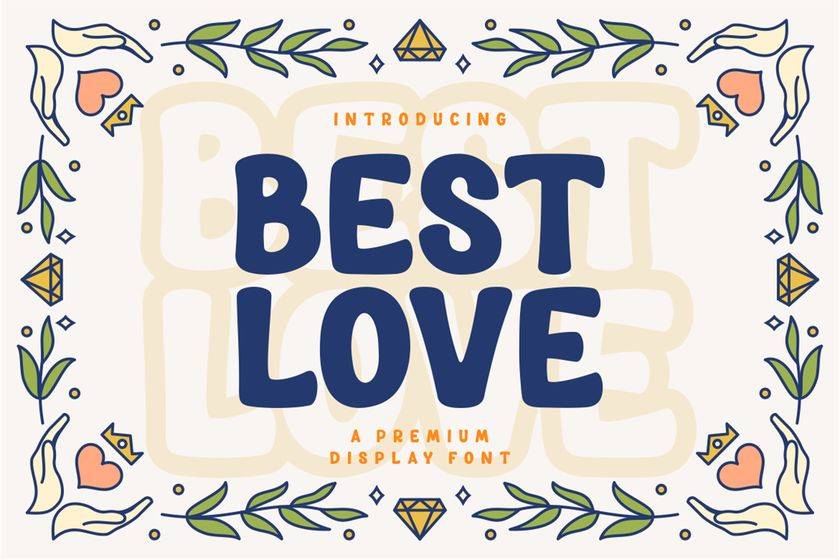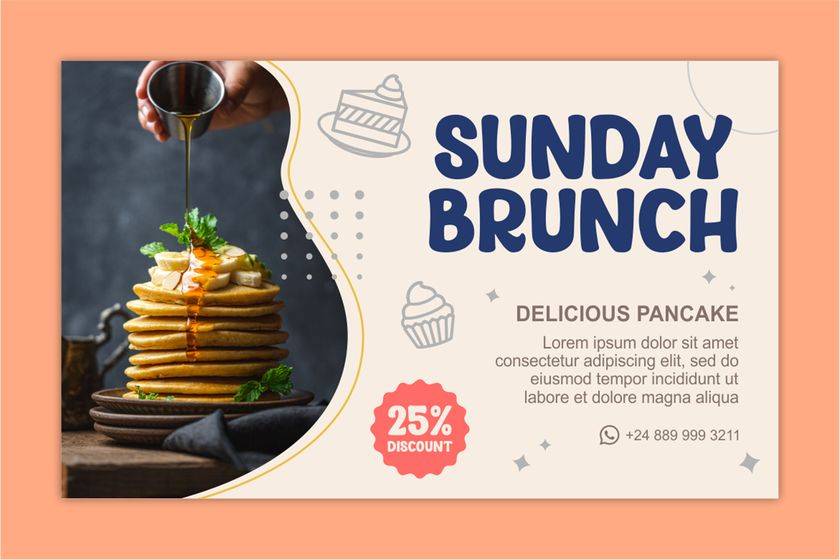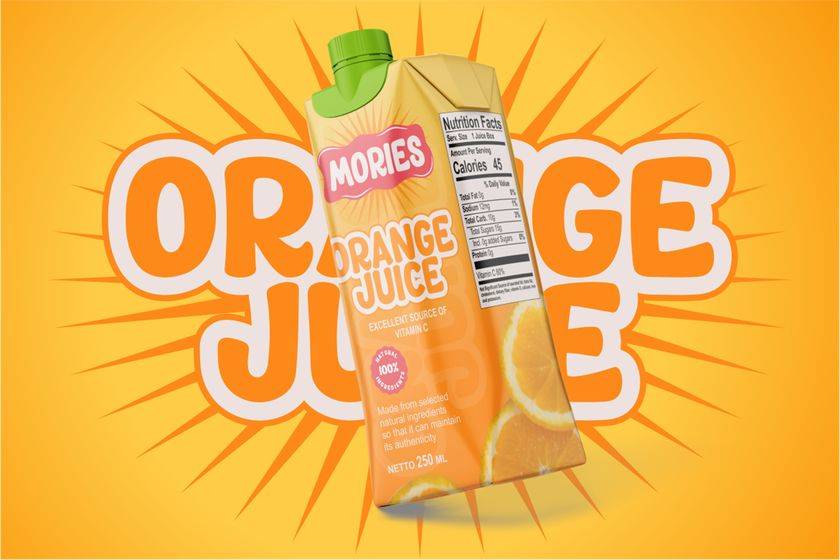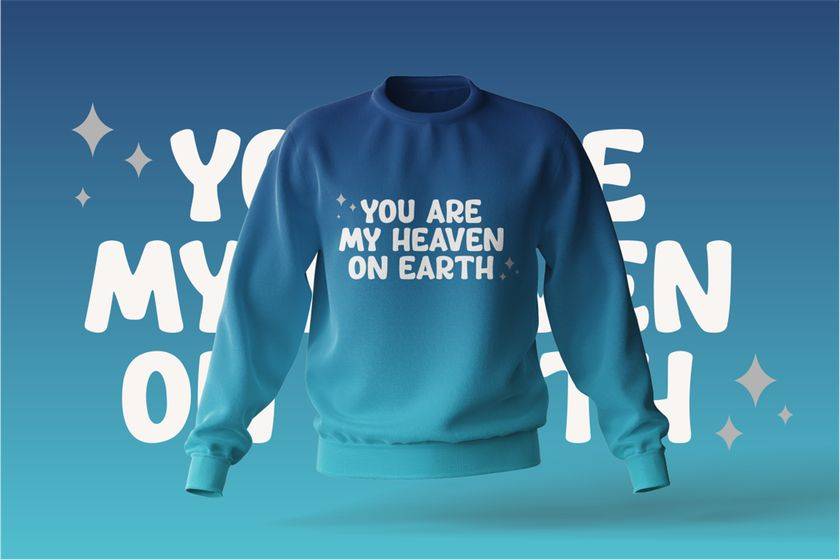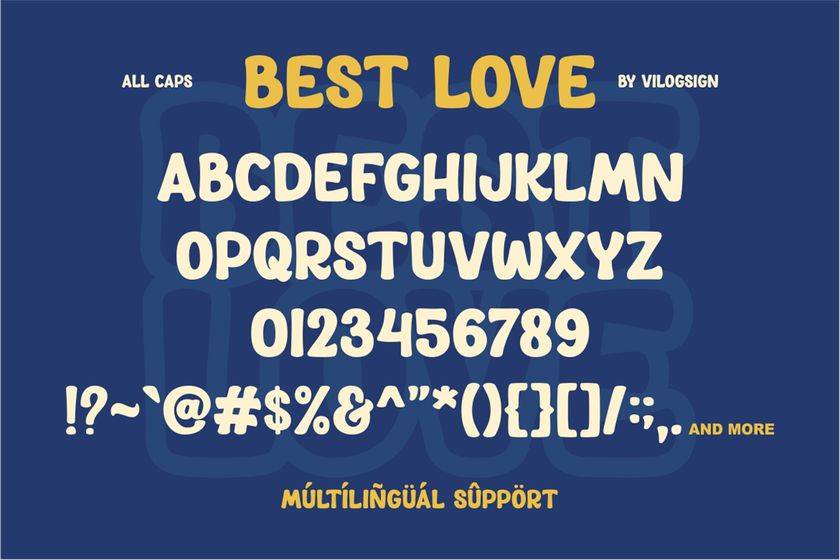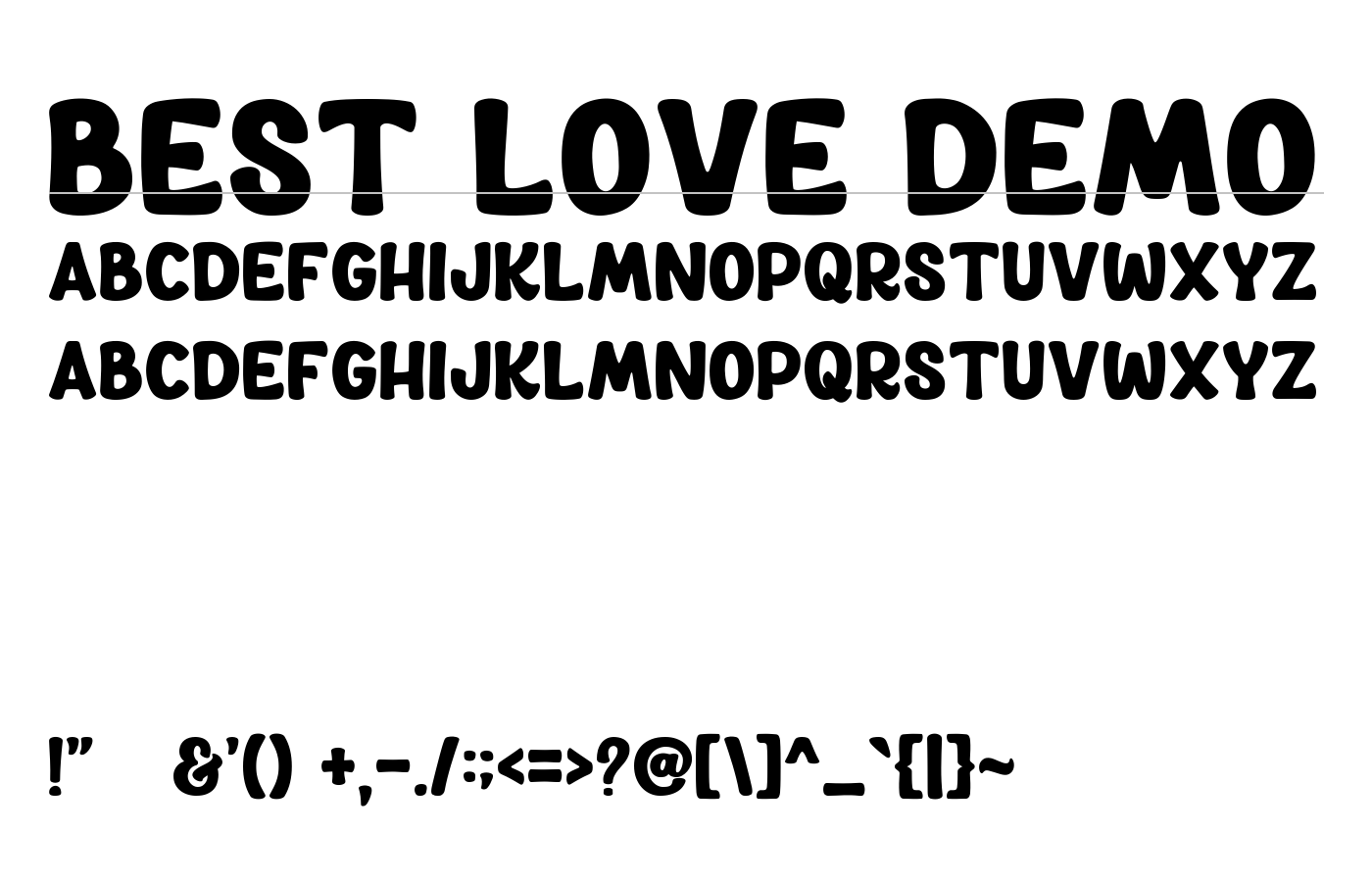
Best Love Font is a bold, playful sans serif with rounded, chunky letterforms that convey a friendly and approachable vibe. Its informal, slightly uneven shapes make it ideal for fun and casual designs, perfect for children’s content, branding, and headlines that need a warm, joyful touch. This font works well where a lively and inviting personality is desired, especially in creative or youthful contexts.
Best Love Font
About Best Love Font
| Font family | Best Love Font |
| Designer | Vilogsign |